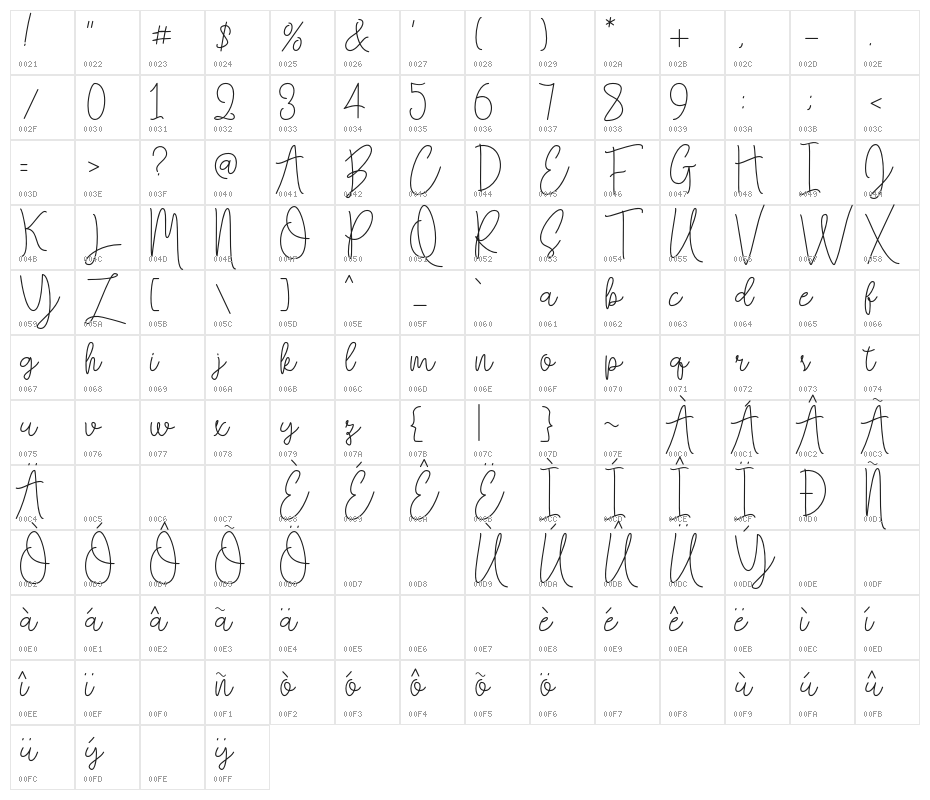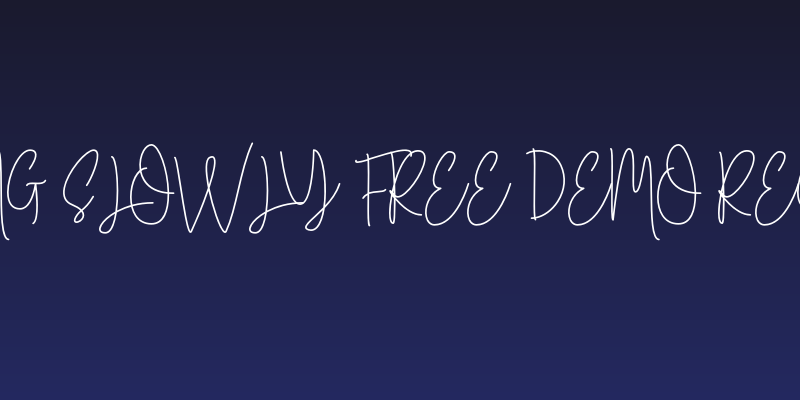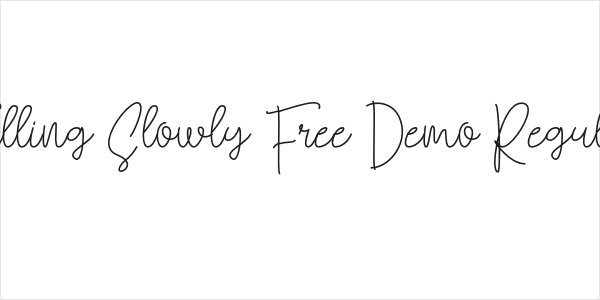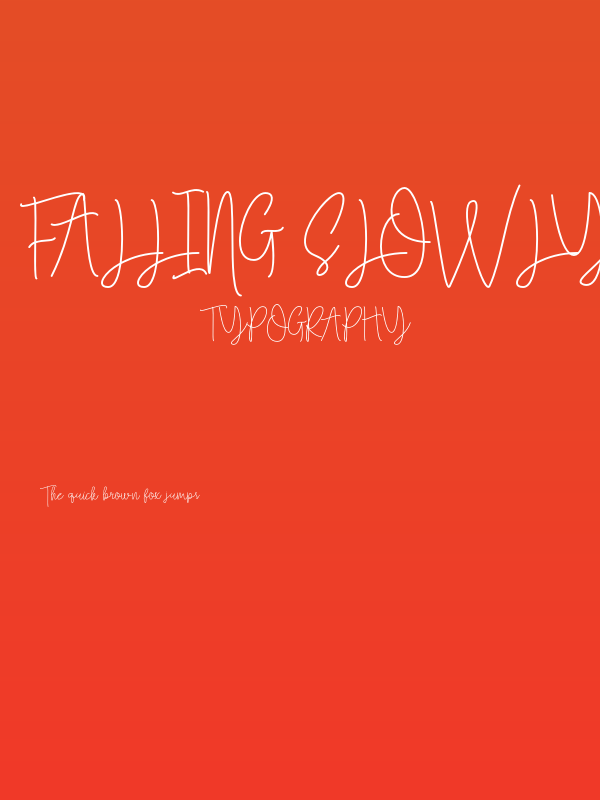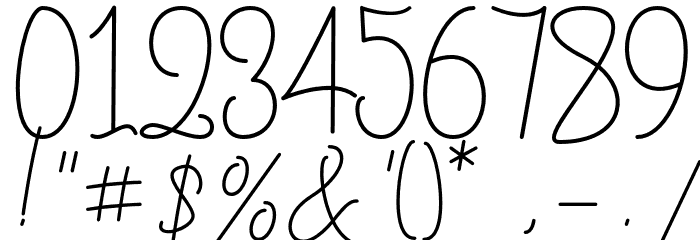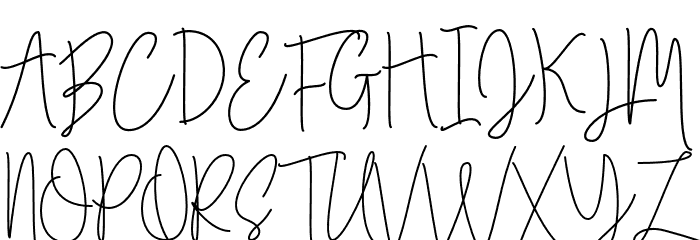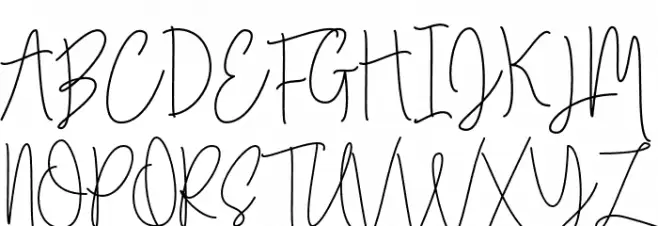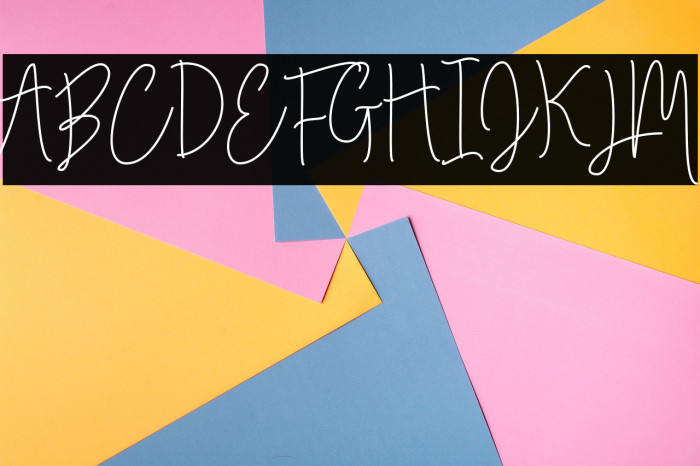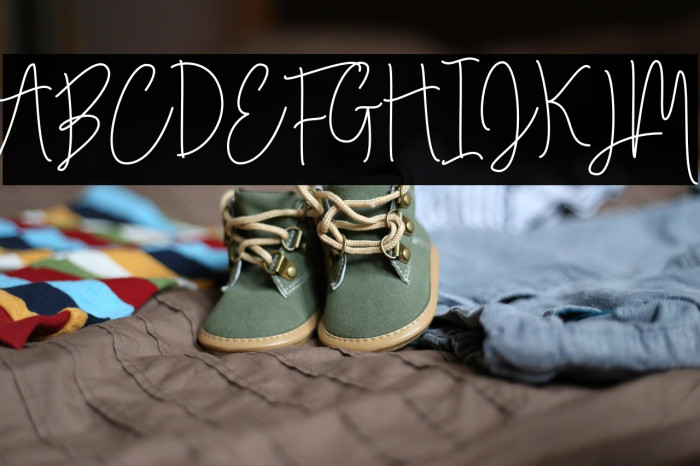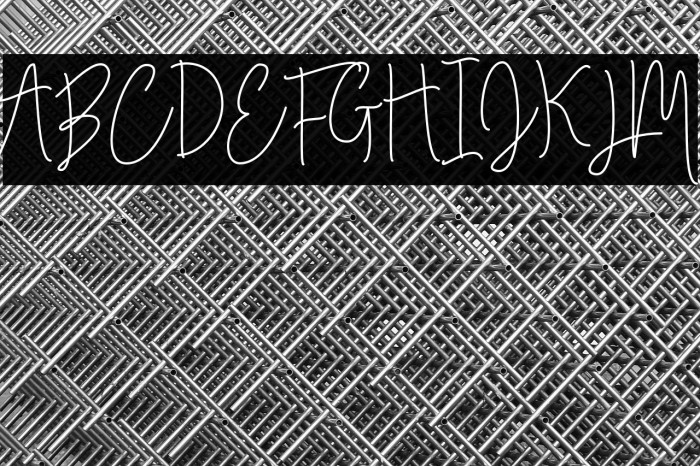
Falling Slowly Free Demo Regular Font
| 分类 | Handwritten |
| 整体风格 | Casual, Whimsical |
| 使用场景 | Logos, Invitations, Personal Branding |
| 推荐项目 | Ideal for greeting cards, invitations, personal branding, and creative projects that benefit from a personal, handwritten touch. |